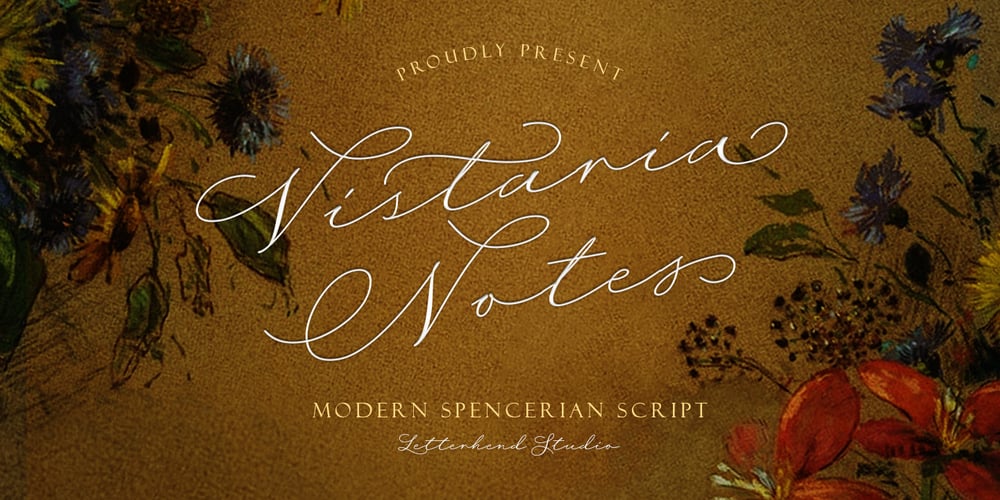
Vistaria Notes Font Family was designed by Hendry Juanda and published by Letterhend. Vistaria Notes contains 1 styles and family package options. Introducing, Vistaria Notes – A beautiful script based on manual hand writing. Inspired by old-fashioned calligraphy script, so classy and classic! This type of font perfectly made to be applied especially in logo, and the other various formal forms such as invitations, labels, logos, magazines, books, greeting / wedding cards, packaging, fashion, make up, stationery, novels, labels or any type of advertising purpose.Features : uppercase & lowercase numbers and punctuation multilingual swash and ligature alternates PUA encoded We highly recommend using a program that supports OpenType features and Glyphs panels like many of Adobe apps and Corel Draw, so you can see and access all Glyph variations. How to access opentype feature : letterhend.com/tutorials/using-opentype-feature-in-any-software/Email us to letterhend@gmail.com if you need something! Happy Designing!